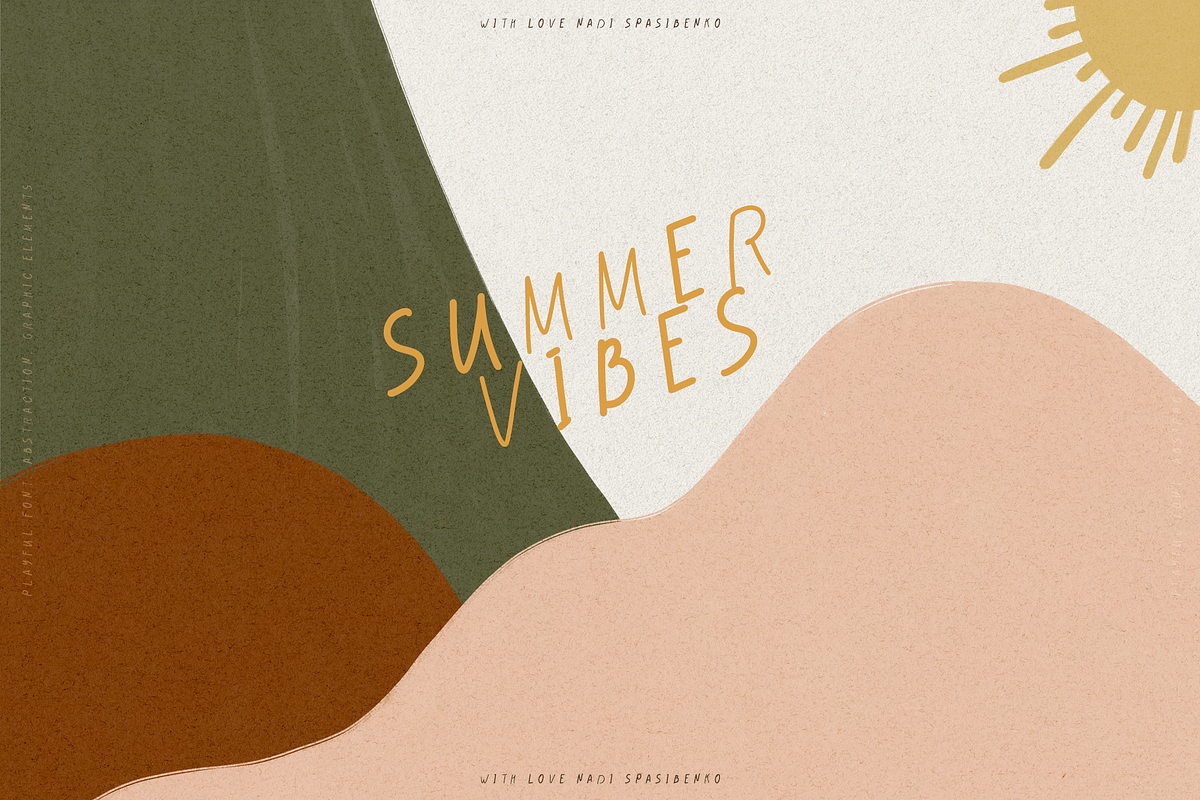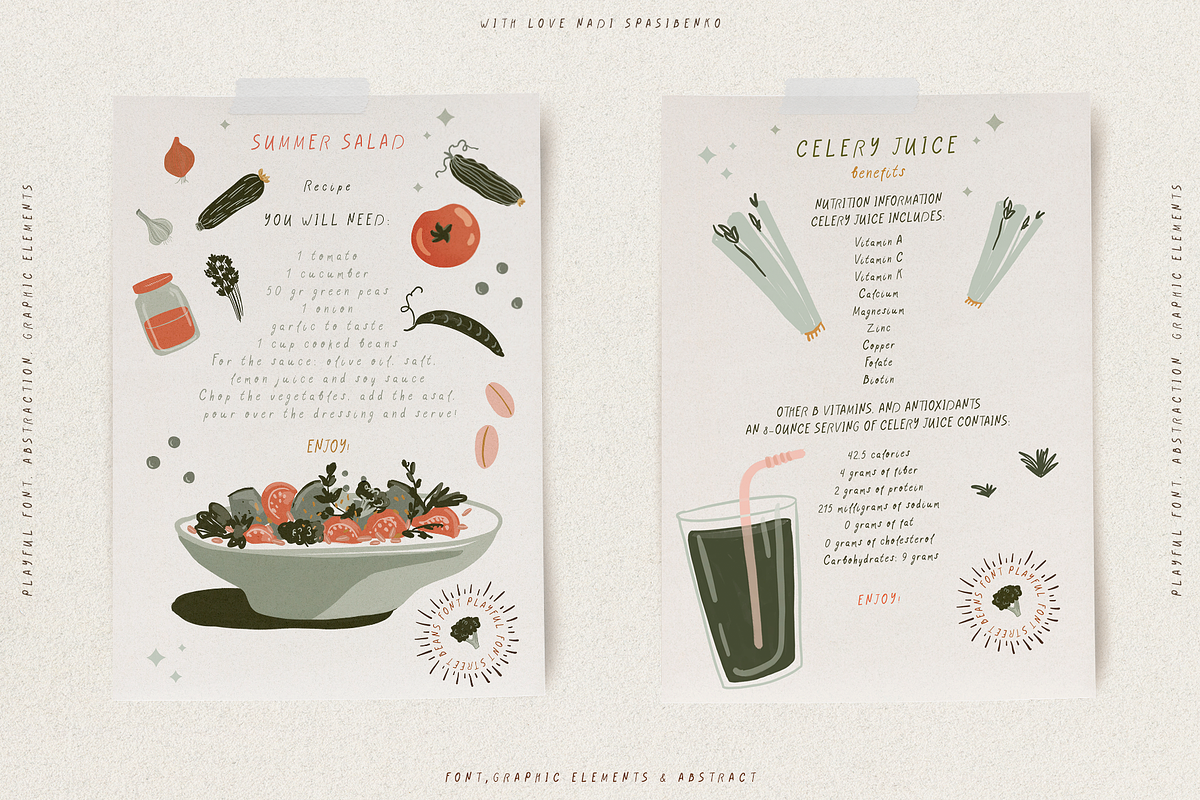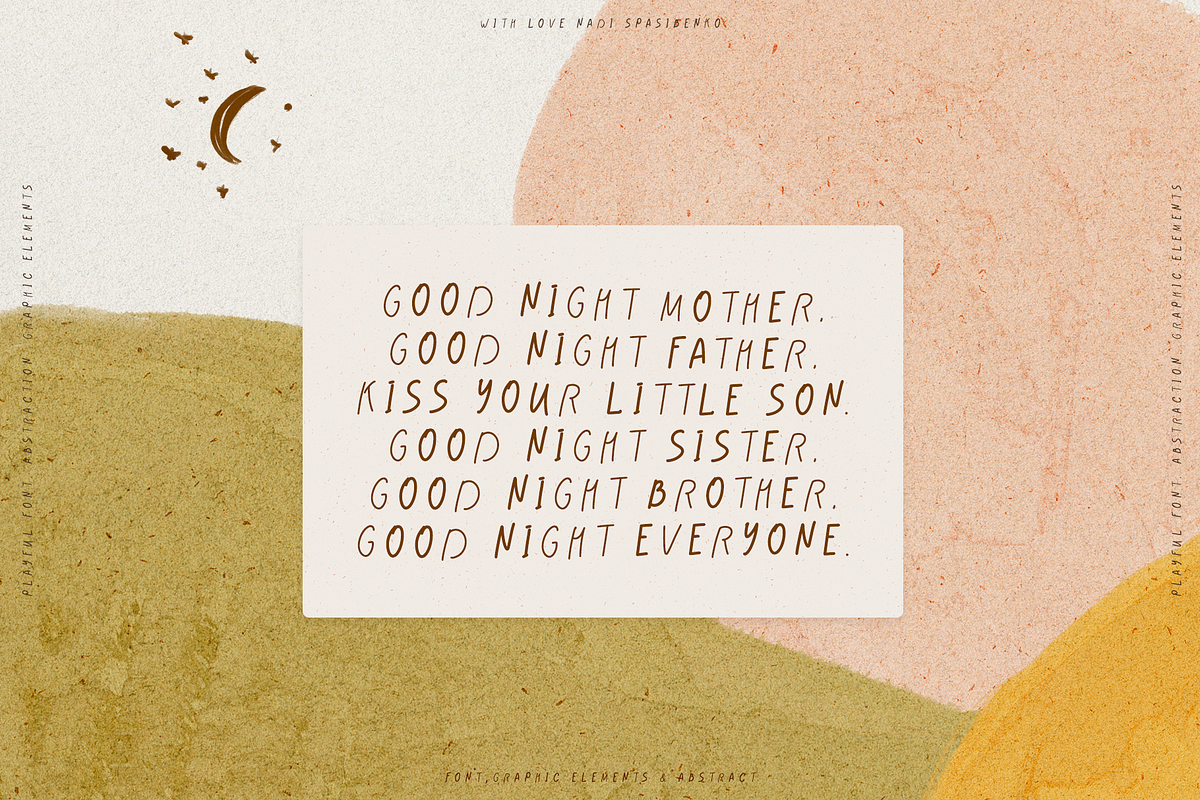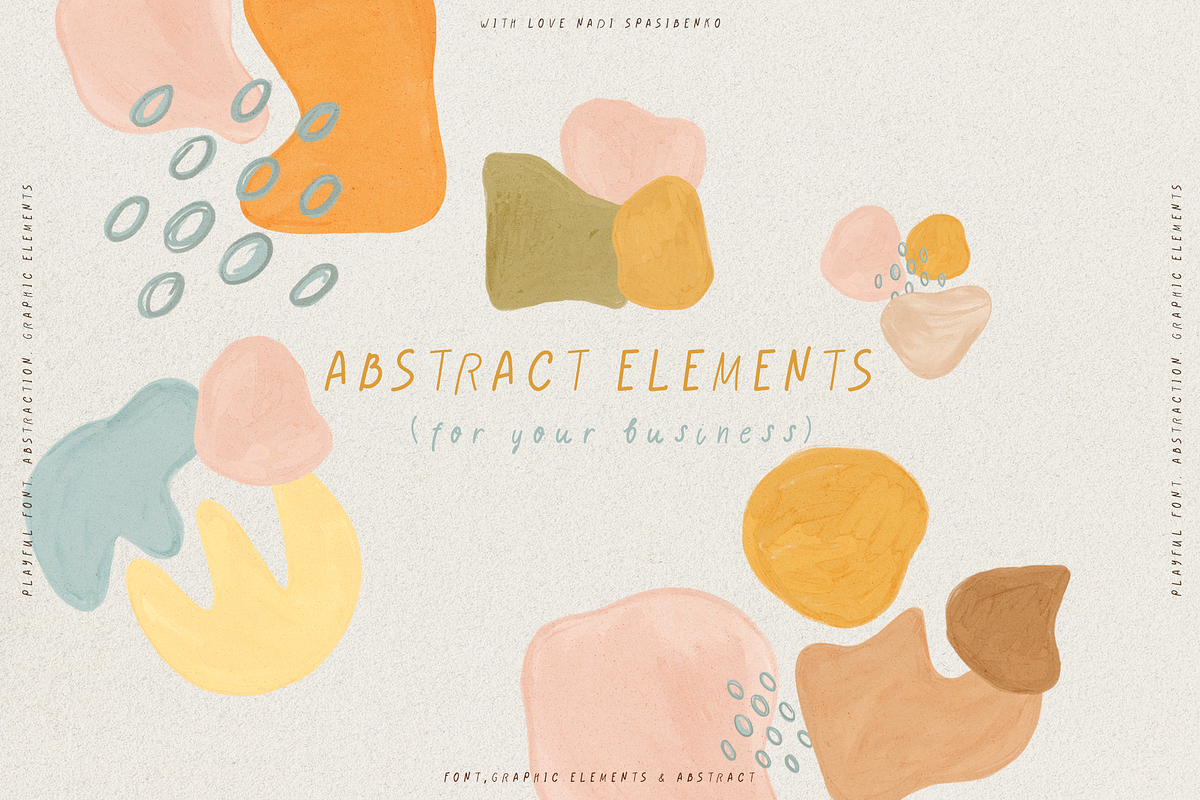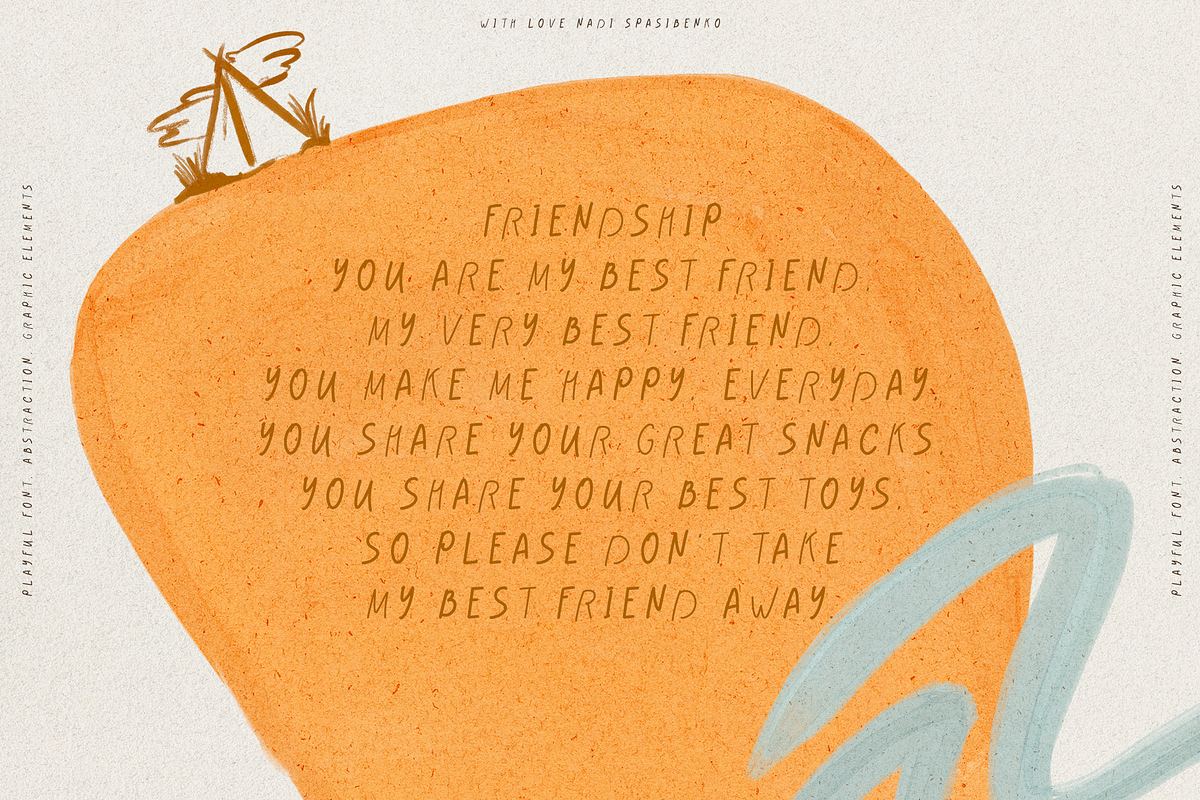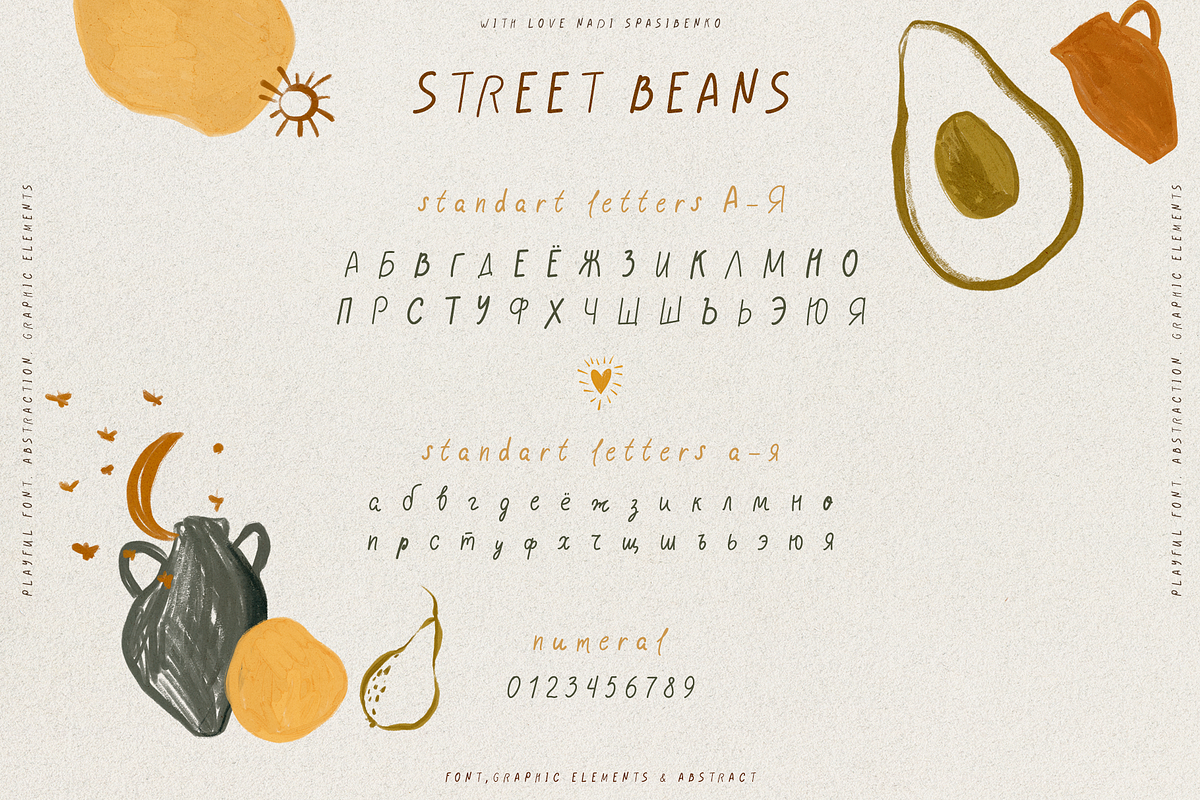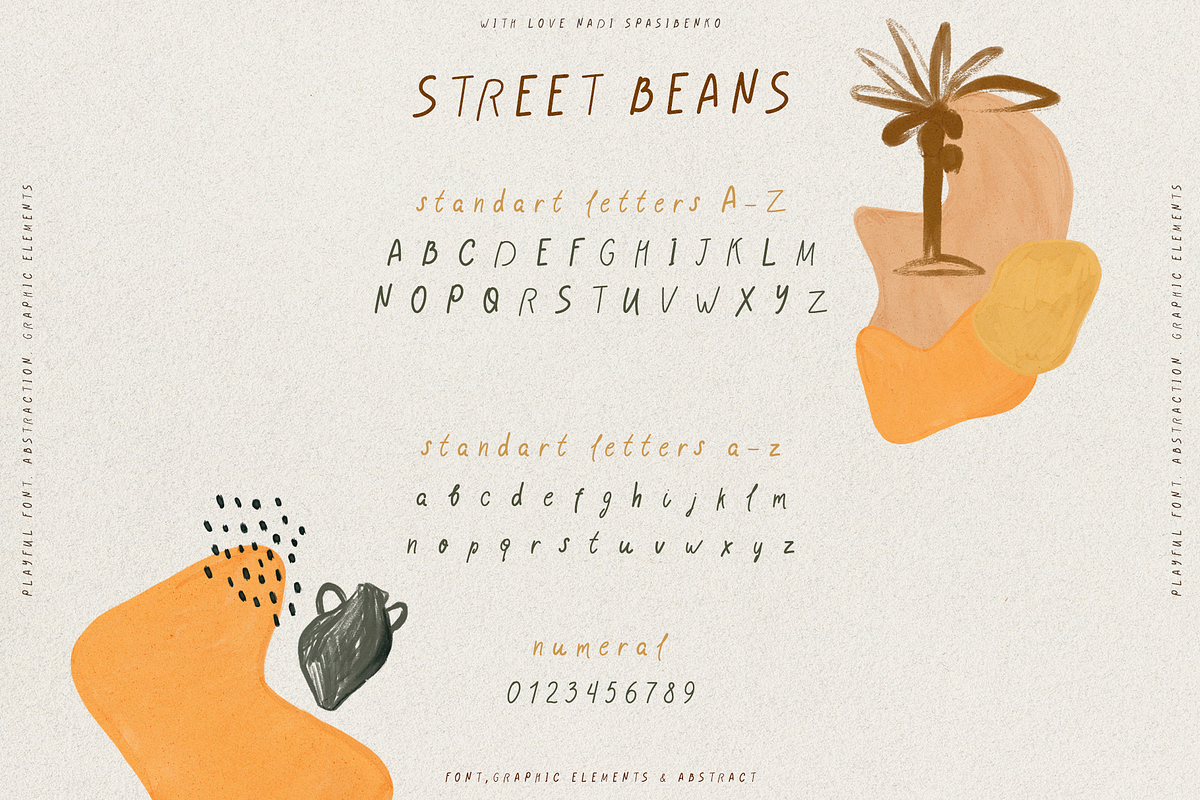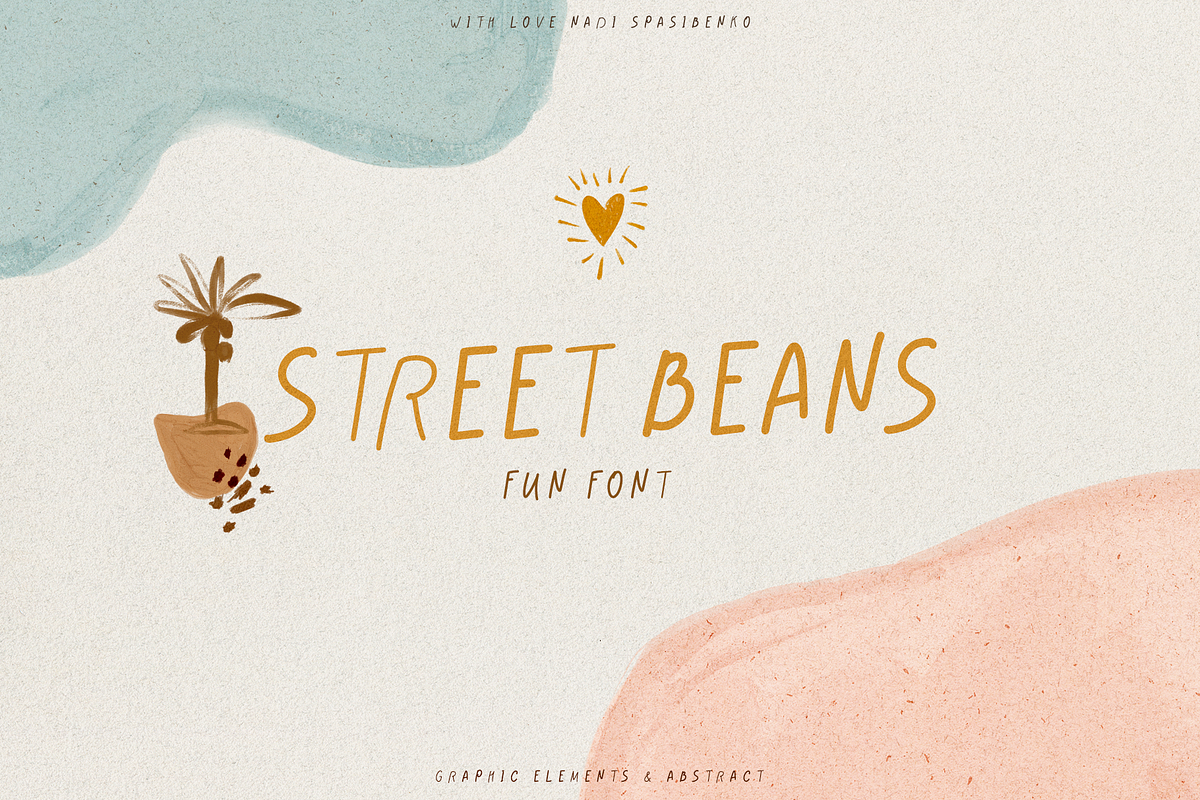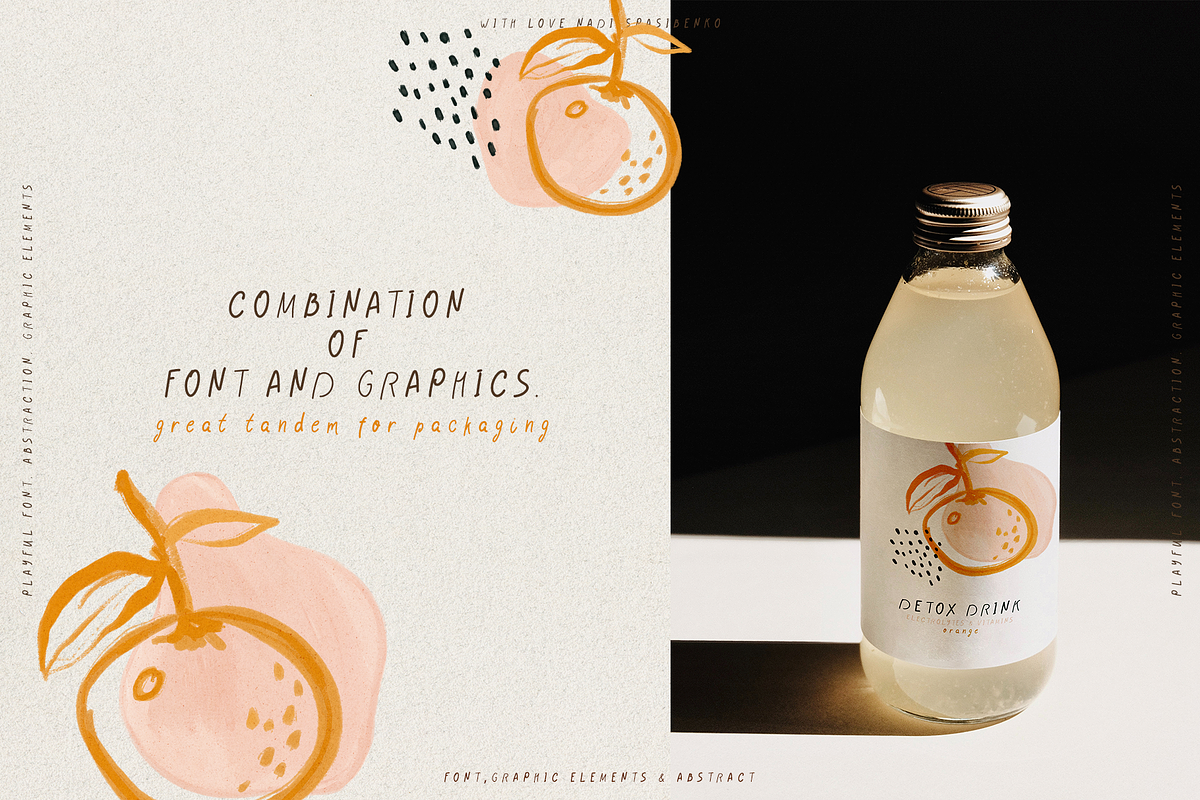
Street Beans || Fun Font & Extras
Lovely playful font with additional graphics. The set includes a font, abstract shapes, various elements and compositions.